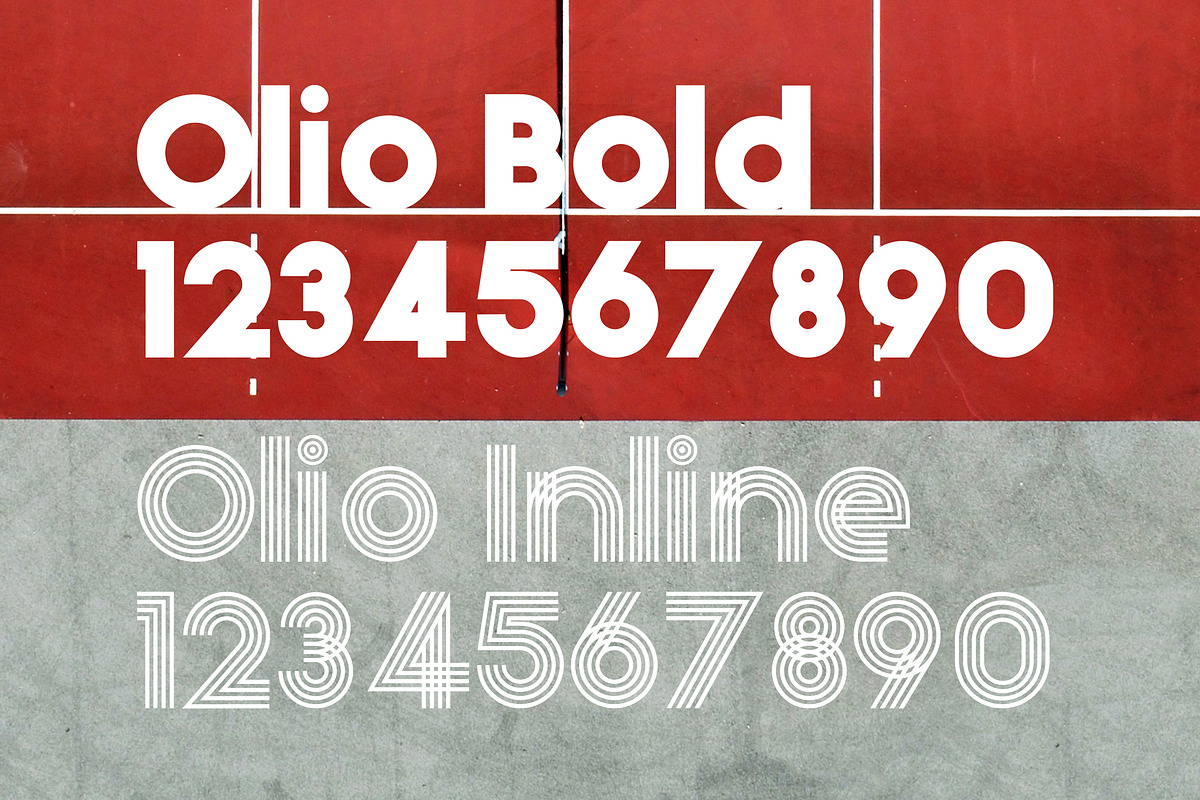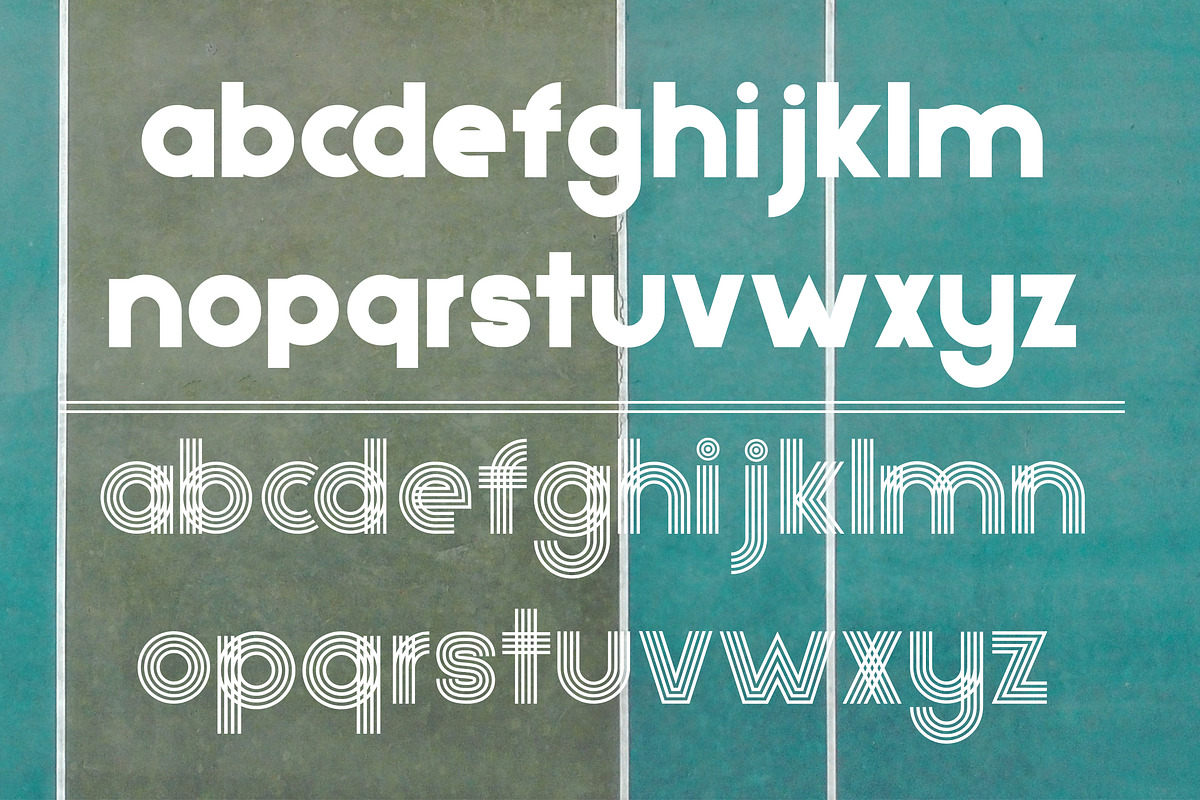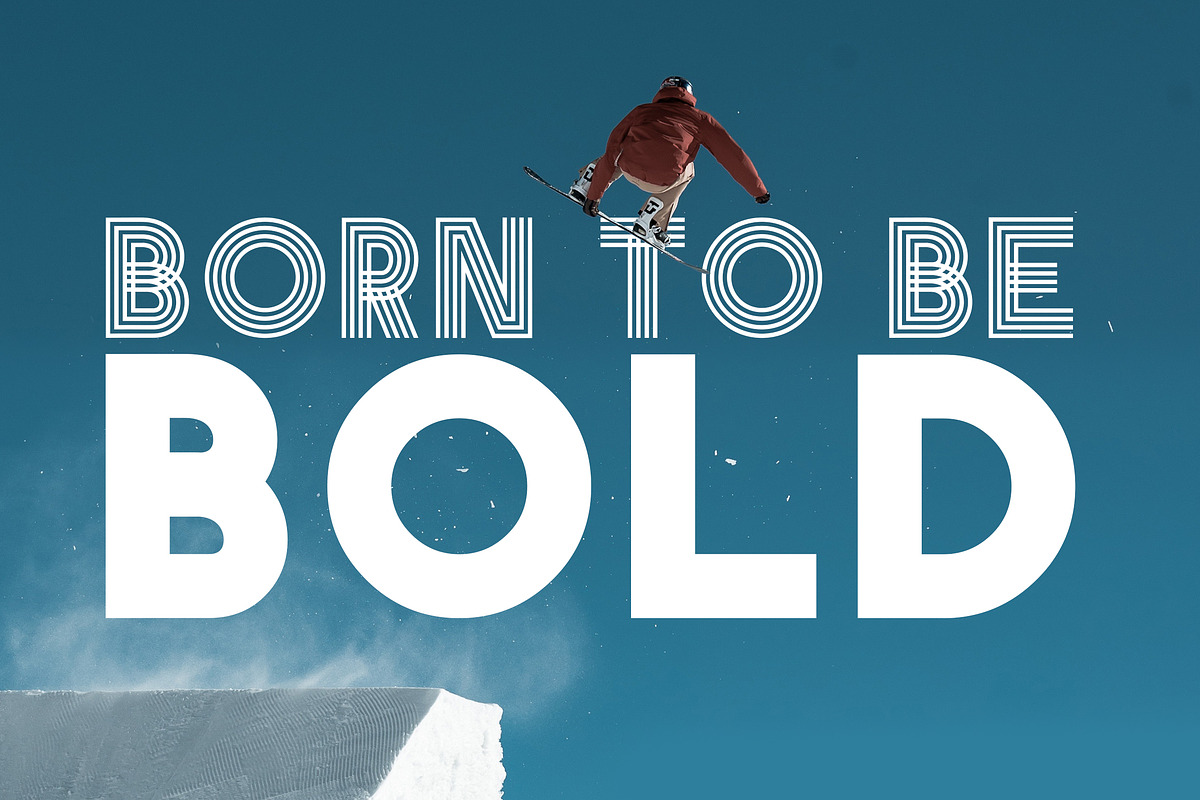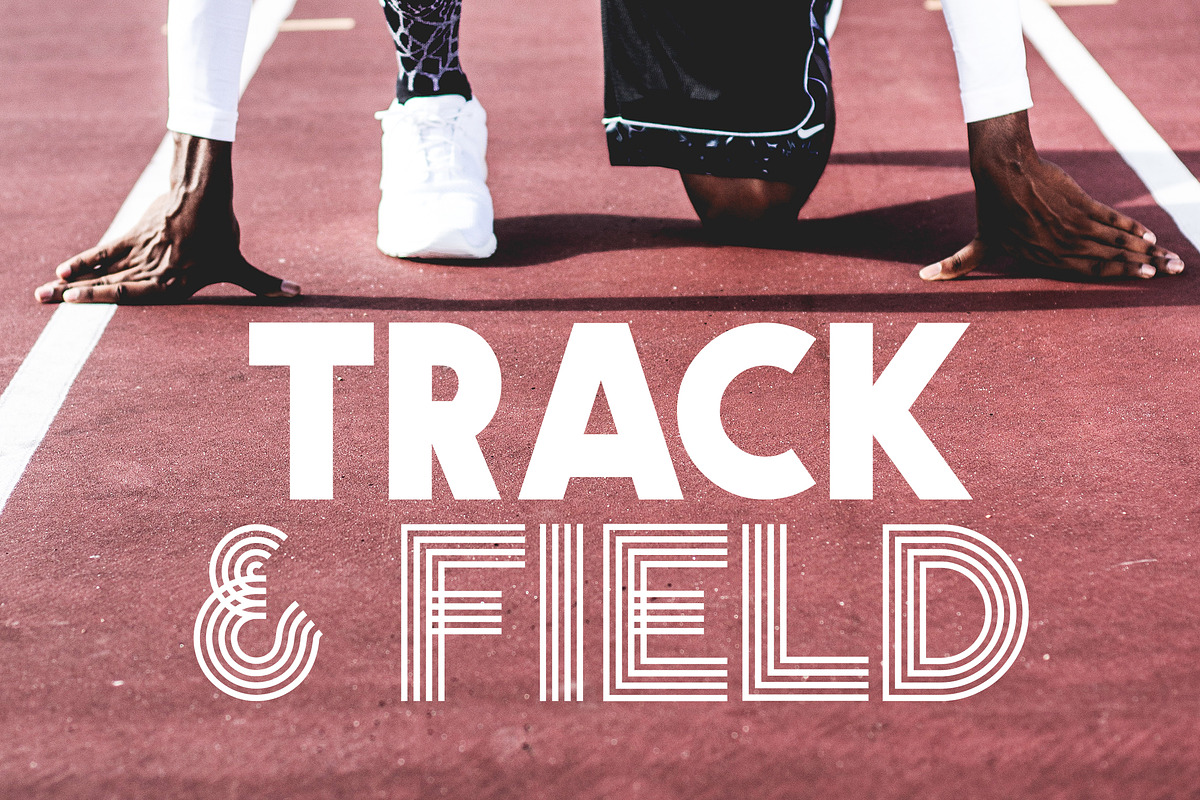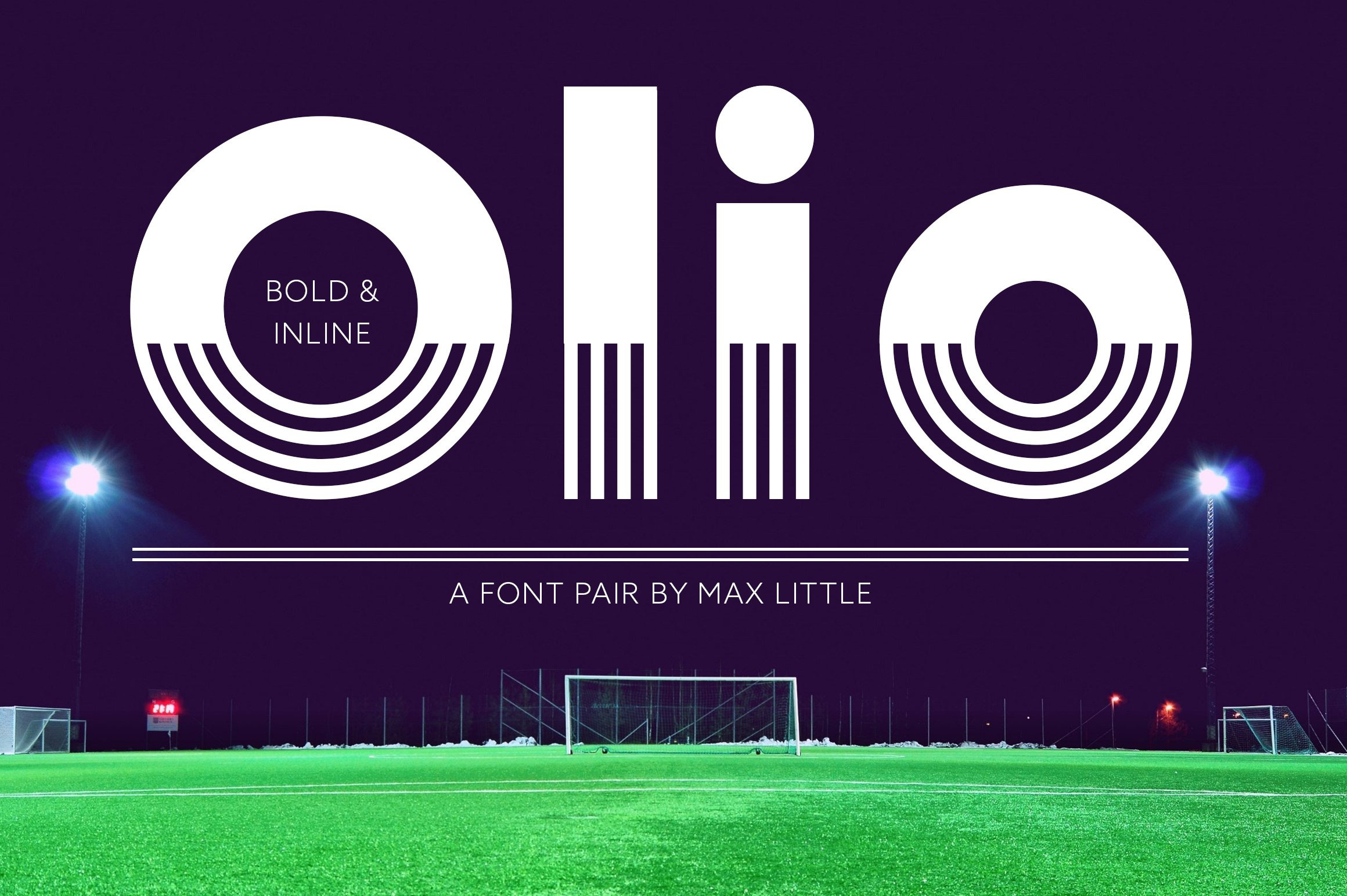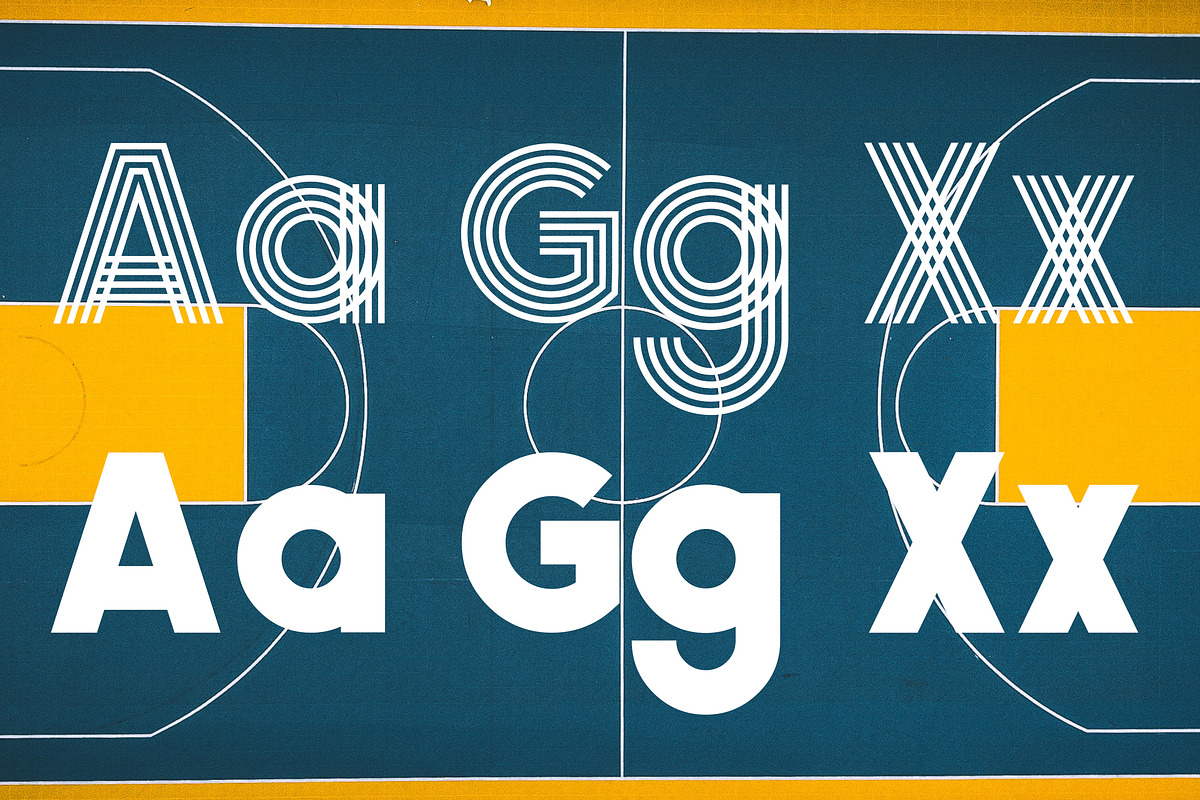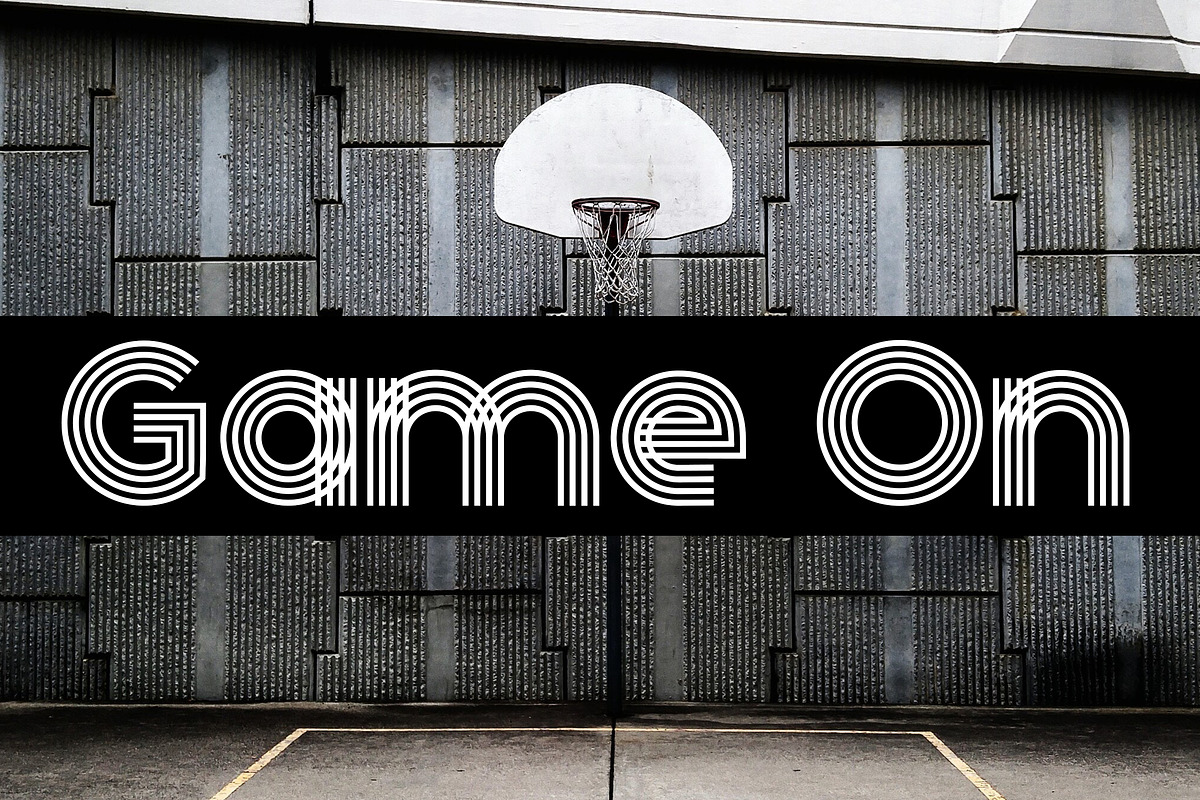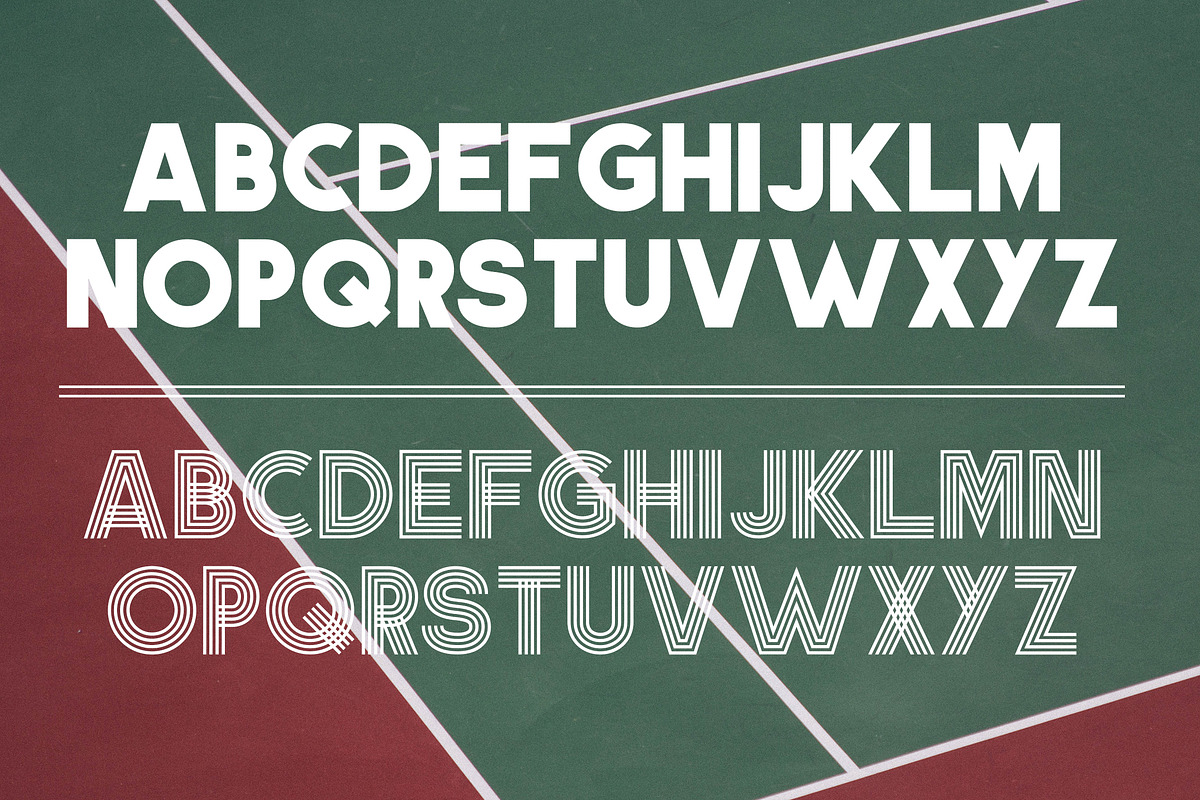
Olio Font Pair
Olio is a chunky geometric sans serif typeface. There are two versions - Bold & Inline. They can work well individually or together and both are included in the download.
Olio inline is a nod towards graphic design champion Lance Wyman and his typographic treatment for the iconic Mexico 68 Olympic identity.